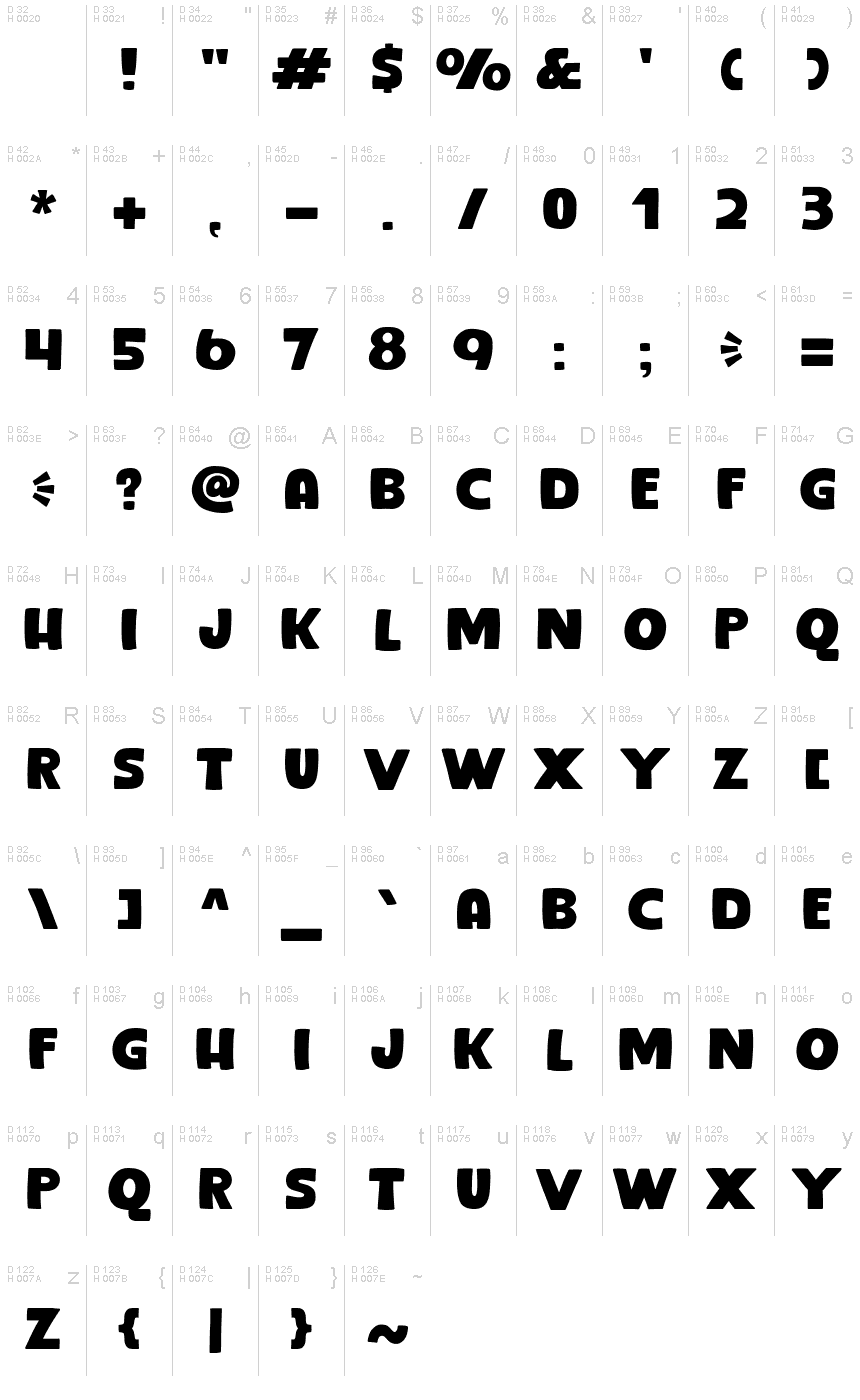
Sobread
Sobread, designed by Khurasan, is a display font that packs a playful punch with its cartoon style and extra-bold weight. Its semi-expanded width offers a friendly presence that commands attention without overwhelming the viewer. The robust curves and playful forms of Sobread create a cheerful aesthetic, perfect for injecting personality into any creative endeavor.
This font's jovial nature makes it ideal for projects aimed at younger audiences or designs that require a touch of whimsy. Whether used for bold headlines, captivating logos, or lively advertising campaigns, Sobread is versatile enough to bring life to children's books, animated movie titles, or fun packaging designs. Its unique characteristics ensure that any message conveyed is not only seen but felt with a sense of joy and lightheartedness.